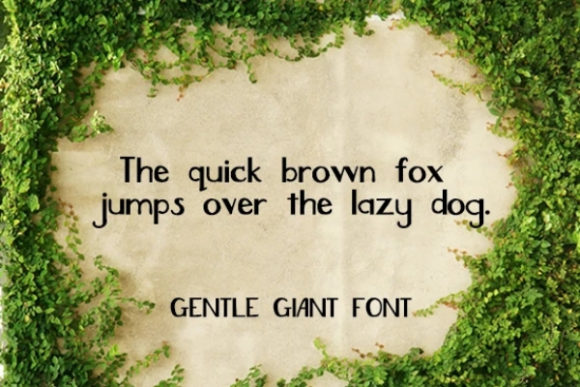
Introduction to Gentle Giant Font
Have you ever stumbled upon the perfect design element while working on a creative project, only to realize it’s the missing piece that brings everything together? For many designers, this moment of serendipity is what makes the design process so magical. And that’s exactly what happened when we discovered the Gentle Giant Font.
This adorable handwritten font is more than just a pretty face – it’s a versatile design resource that can elevate any project from simple to stunning. With its clean and soft lines, the Gentle Giant Font is the perfect fit for crafty DIY projects, logos, branding, social media, and more. Whether you’re a seasoned designer or a DIY enthusiast, this font is sure to add a touch of personality to your work.
Key Features of Gentle Giant Font
- High-quality, hand-drawn design ideal for creative projects requiring a unique touch
- Features a transparent background, allowing for seamless integration into any design
- Designed to be highly legible, even at smaller font sizes, making it perfect for body text or headings
Honest Review: Gentle Giant Font
As a designer, I’m always on the lookout for high-quality fonts that can elevate my creative projects. Recently, I stumbled upon the Gentle Giant Font, and I must say it’s been a pleasant surprise. ✨
- The font’s transparent background allows for seamless blending with any design element, making it a versatile choice for a wide range of creative projects.
- The font’s unique, playful style adds a touch of whimsy to any design, making it perfect for projects that require a bit of creativity and flair.
However, there are a few limitations to consider. ⚠️
- The font may not be suitable for projects that require a more formal or serious tone, as its playful nature may not be the best fit.
- The font’s size and weight may not be ideal for small-scale designs or text-heavy projects, where readability is a top priority.
Overall, I’m quite impressed with the Gentle Giant Font, and I think it’s a great addition to any designer’s toolkit. Its unique style and versatility make it a valuable resource for creative projects, and its free download is a definite plus. I’d definitely recommend giving it a try!
The Gentle Giant Font is perfect for various designs, such as logo creation, branding, and typography projects. Its unique style makes it stand out and adds a touch of elegance to your design.
Alternatives to Gentle Giant Font
The Great Vibes Font is a high-quality, elegant script font perfect for creative projects. Its transparent background and cursive design make it ideal for use in titles, headings, and quotes. You can download it for free, making it an excellent design resource for your next project.
When to use: Use Great Vibes Font for formal or informal events, weddings, and other occasions where a touch of elegance is required. It’s a great alternative to Gentle Giant Font for projects that need a more refined and sophisticated look.
Comparison: Great Vibes Font has a more refined and delicate feel compared to Gentle Giant Font, which is bolder and more playful. If you’re looking for a font that exudes luxury and sophistication, Great Vibes Font is the better choice.